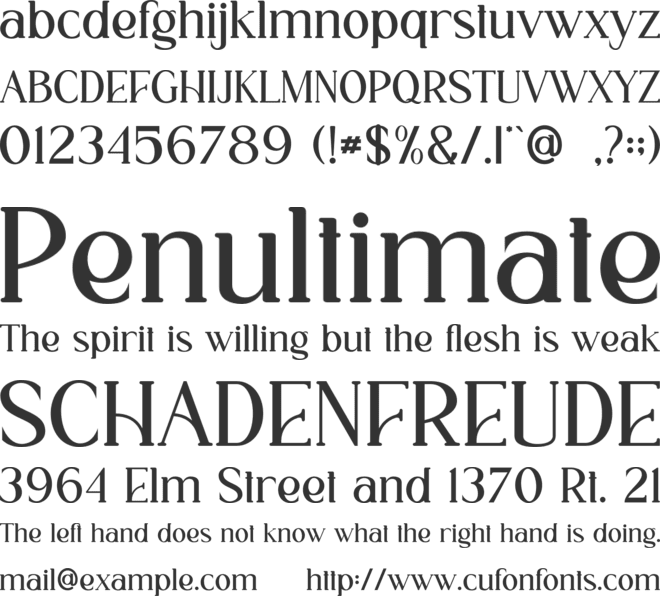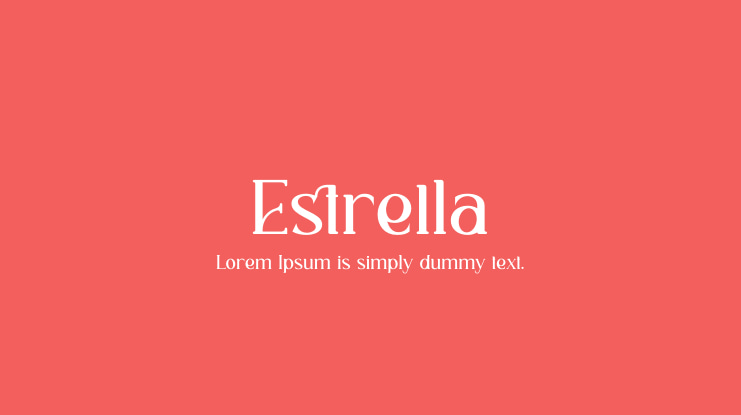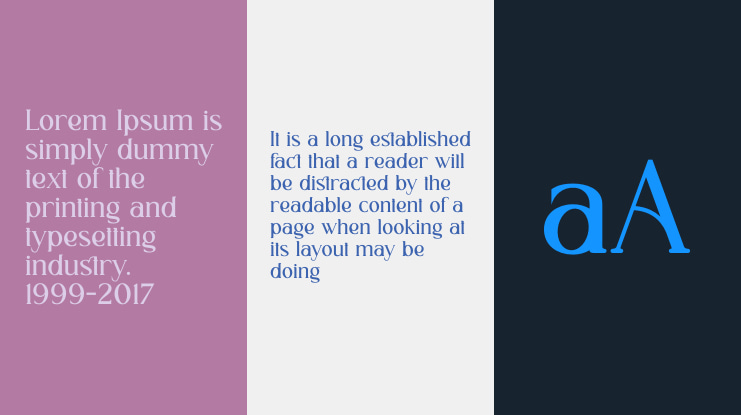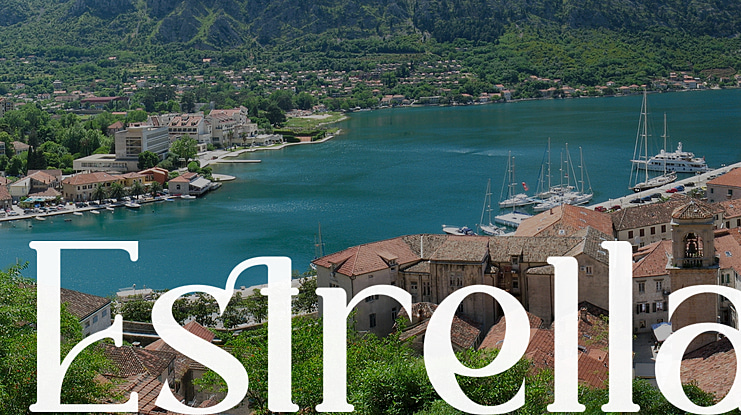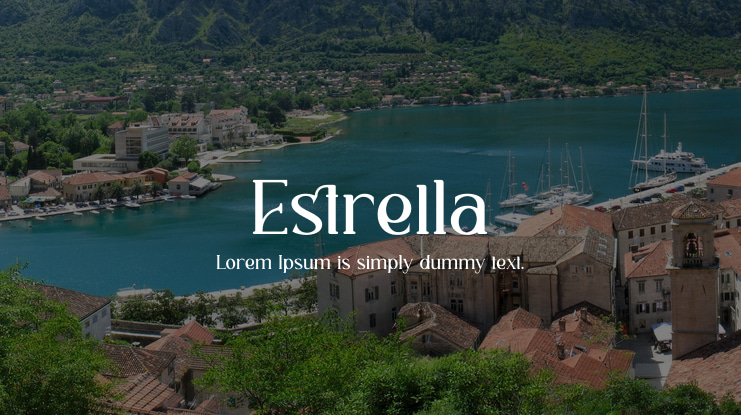
Estrella Font
This is an elegant & modern serif typeface that looks incredible in both large and small settings. No matter the topic, this font will be an incredible asset to your fonts’ library, as it has the potential to elevate any creation. Perfect for applying to poster designs, branding, magazines, merchandise, logos and more.